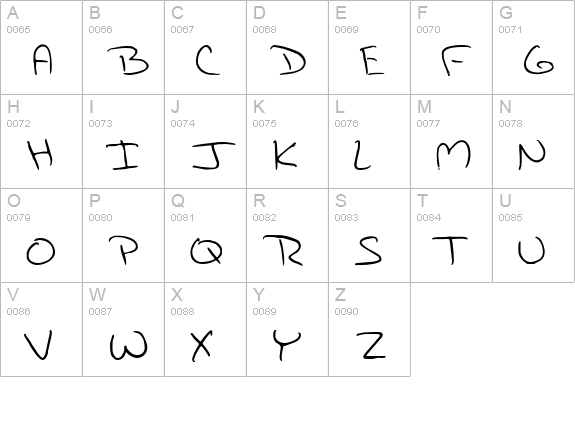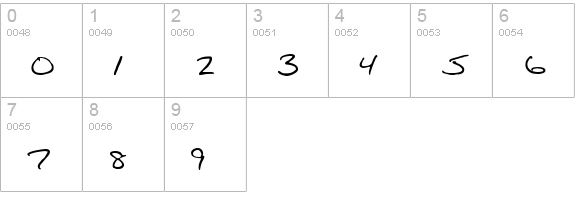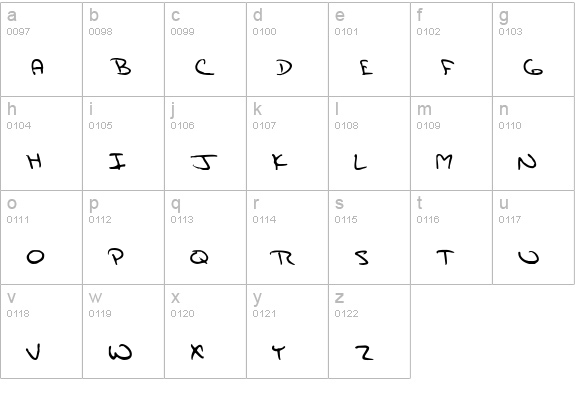
JAMI font is a beautifully crafted typeface that exudes elegance and sophistication. Its graceful curves and sleek lines make it perfect for a wide range of design projects, from branding and logos to invitations and packaging. The JAMI font is a versatile typeface that can effortlessly adapt to any style or mood. Whether you are looking to create a modern and minimalist design or a vintage-inspired masterpiece, JAMI font has got you covered. One of the best things about JAMI font is that it is free! Yes, you heard it right. This stunning typeface is freely available to download at FontsMarket.com. Now you can add a touch of class to your projects without breaking the bank. Downloading JAMI font from FontsMarket.com is easy and convenient. With just a few clicks, you can have this incredible typeface at your fingertips, ready to be used in all your creative endeavors. So why wait? Enhance your designs with the timeless beauty of JAMI font today. Download it for free at FontsMarket.com and let your creativity soar.